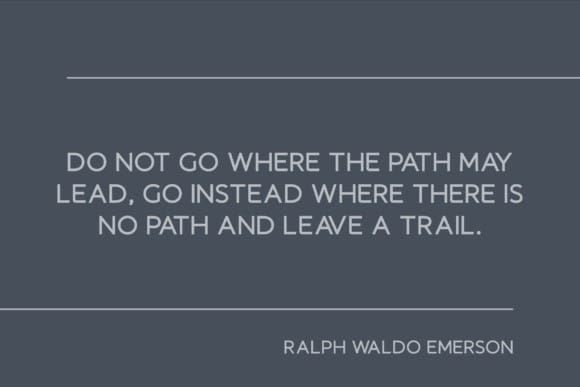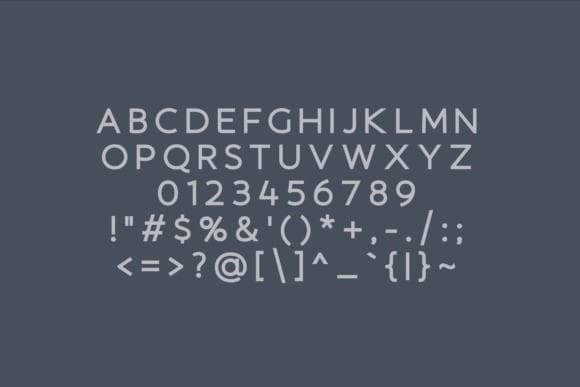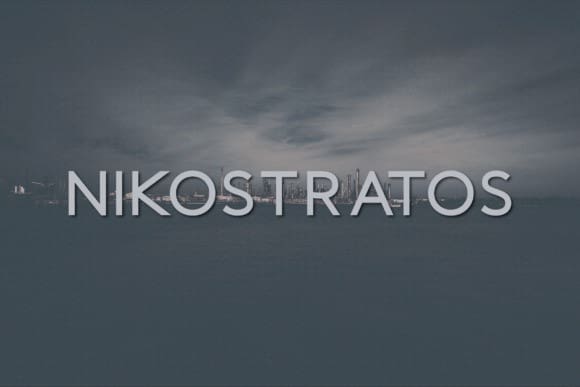
Nikostratos Font
Nikostratos Font – a contemporary, chic sans serif typeface. This created with careful precision, a sans serif font is rich in upper case characters, complete with numbers from 0-9 and an extensive collection of punctuation and symbols. Its versatility makes it a stellar choice for an array of applications. Be it crafting logos, personalizing wedding invitations, authoring memorable quotes, running compelling advertisements, putting together print materials, or designing magazines, Nikostratos brings an impeccable style and sophistication to any creative project.